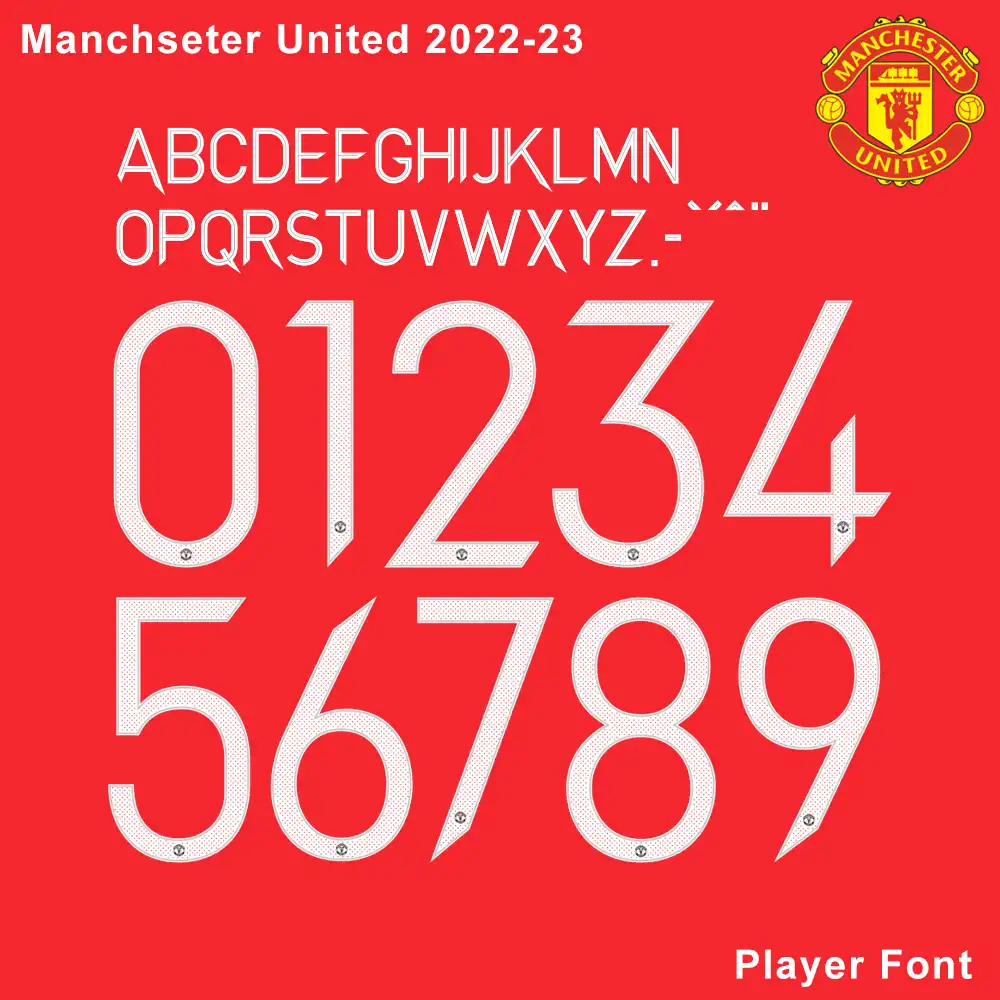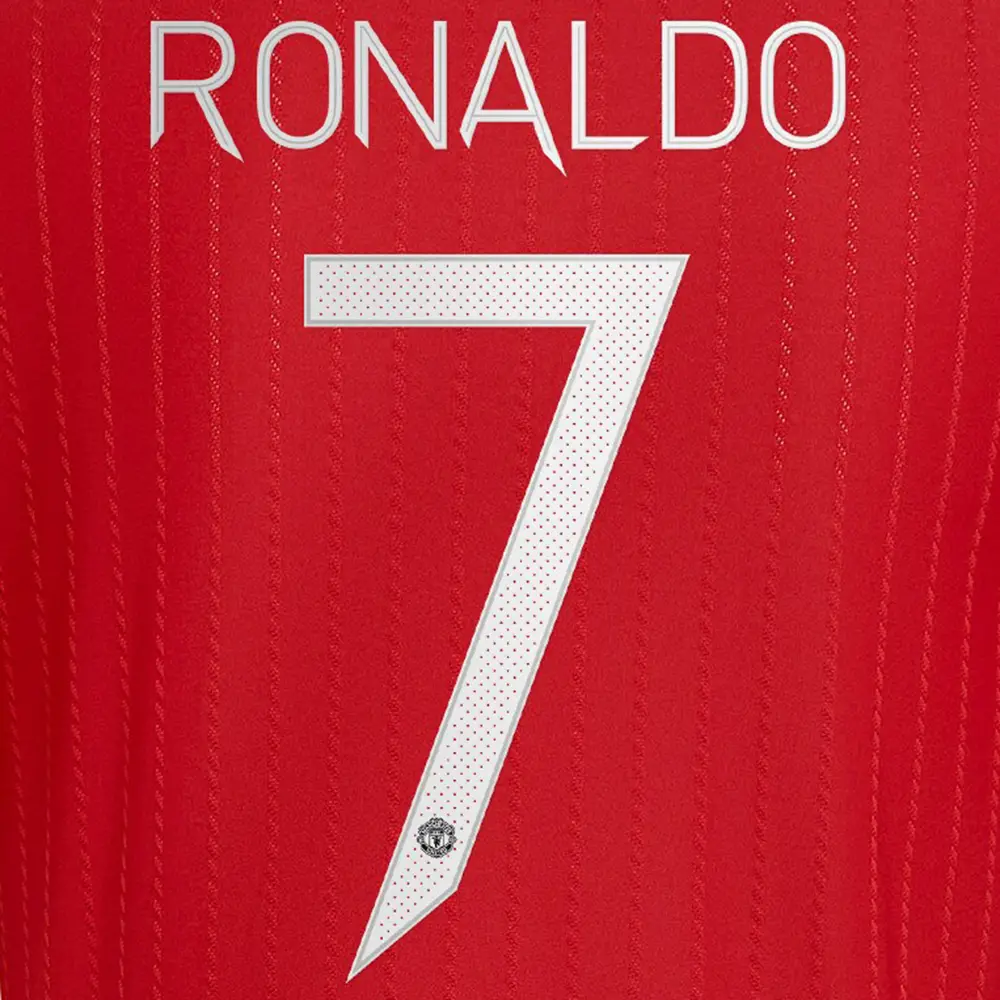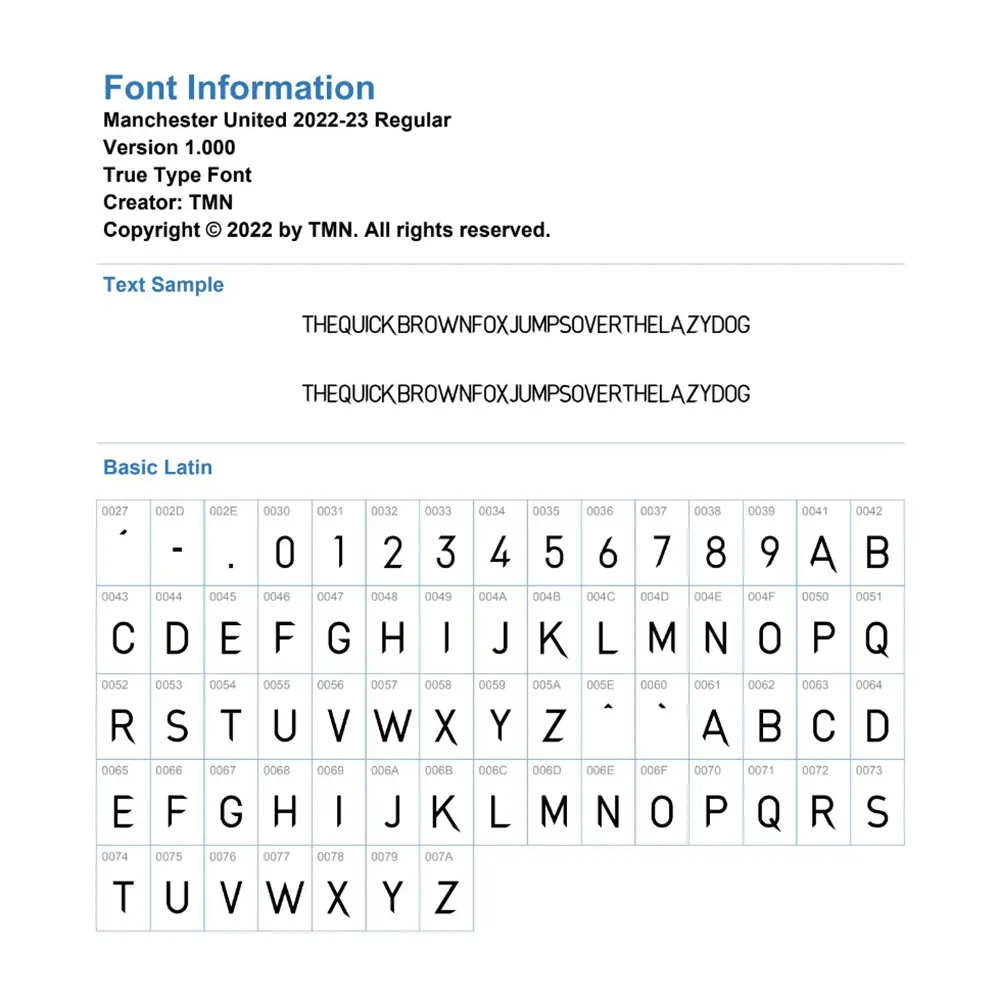
Elevate your sports jersey mockups, football custom graphics, and vector apparel printing projects with the high-quality Manchester United 2022-2023 Font Download. Masterfully engineered by Playerfont.com, this high-performance typography set replicates the official-style numbers and distinct angular lettering featured on the pitch for Red Devils cup and European matches during the 2022-23 season.
Key Typography Features & Character List:
Sharp Modern Lettering: Contains an exclusive uppercase character set with sharp diagonal cuts, custom letter spurs, numbers (0-9), hyphens, periods, and accents.
Perforated Pattern Details: The jersey numbers feature fine mesh-style dot perforations across the white bodies, framed by sharp pointed bases, paired with the circular Manchester United crest centered at the base of each digit.
| Design Feature | White Perforated Body with Pointed Base & Red United Crest |